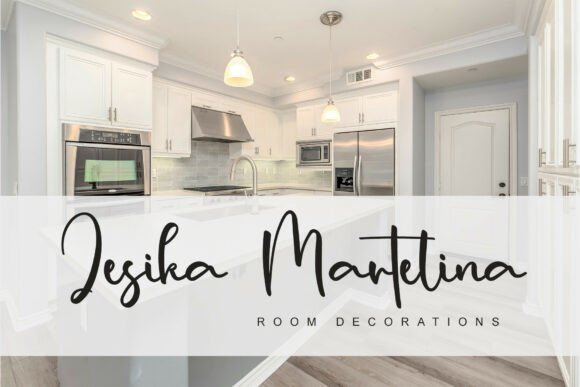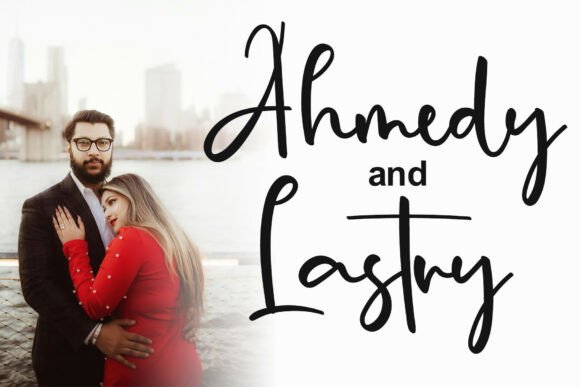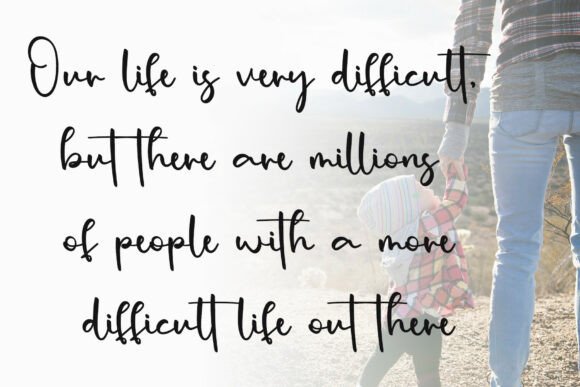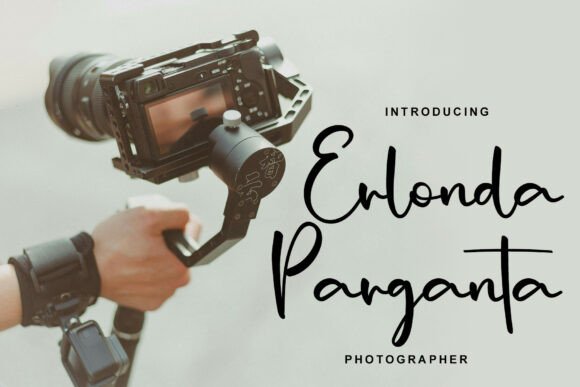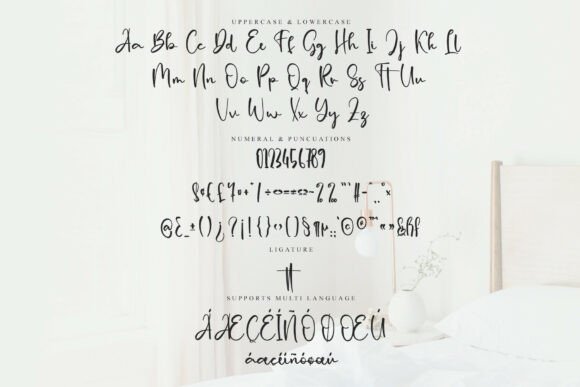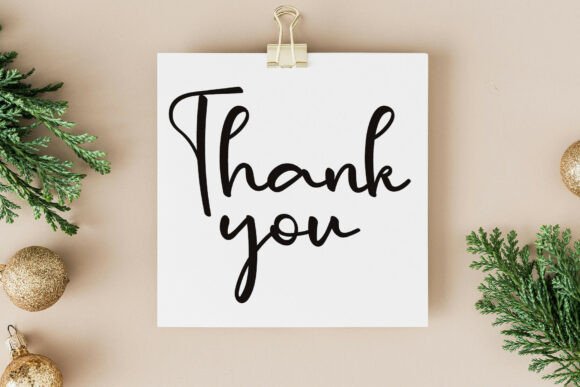
The Art of Human Touch: Unveiling the Calligraphy Font
Have you ever felt the joy of receiving a handwritten letter or a beautifully crafted invitation? The tactile sensation of pen on paper, the unique imperfections that make it one-of-a-kind – it’s a sensory experience like no other. This is precisely the essence of the Calligraphy font, a typeface that embodies the effortless charm of human touch.
Designed to evoke a sense of nostalgia and personal connection, the Calligraphy font features fluid, flowing strokes that appear to have been penned just moments ago. As a designer, you’ll appreciate its authentic and warm character, making it an ideal choice for projects that require a “handmade” or “bespoke” aesthetic. Whether you’re working on a high-end travel blog or intimate event stationery, the Calligraphy font provides the perfect balance of legibility and artistic flair.
- Unique Characteristics: Distinctive, flowing strokes and letterforms that evoke a sense of elegance and sophistication, making it ideal for formal and creative applications.
Calligraphy Font Review
Overall, I think the Calligraphy Font is a beautiful addition to any design project. The fluid curves and elegant strokes make it perfect for creating a sense of sophistication and refinement.
- Beautifully crafted letterforms that evoke a sense of luxury and elegance
- Highly versatile, suitable for a wide range of design projects, from wedding invitations to branding materials
- Great for creating a sense of drama and flair, especially when used in bold, large-scale typography
However, I do have some reservations about the Calligraphy Font’s limitations.
- May be too ornate for some design projects, potentially overwhelming the viewer
- Lack of customization options, making it difficult to adjust the font’s size and spacing
- Not ideal for body text, as it can be difficult to read at smaller font sizes
Overall, I think the Calligraphy Font is a stunning choice for designers who want to add a touch of elegance and sophistication to their projects. While it may have some limitations, its beauty and versatility make it a valuable addition to any design toolbox.